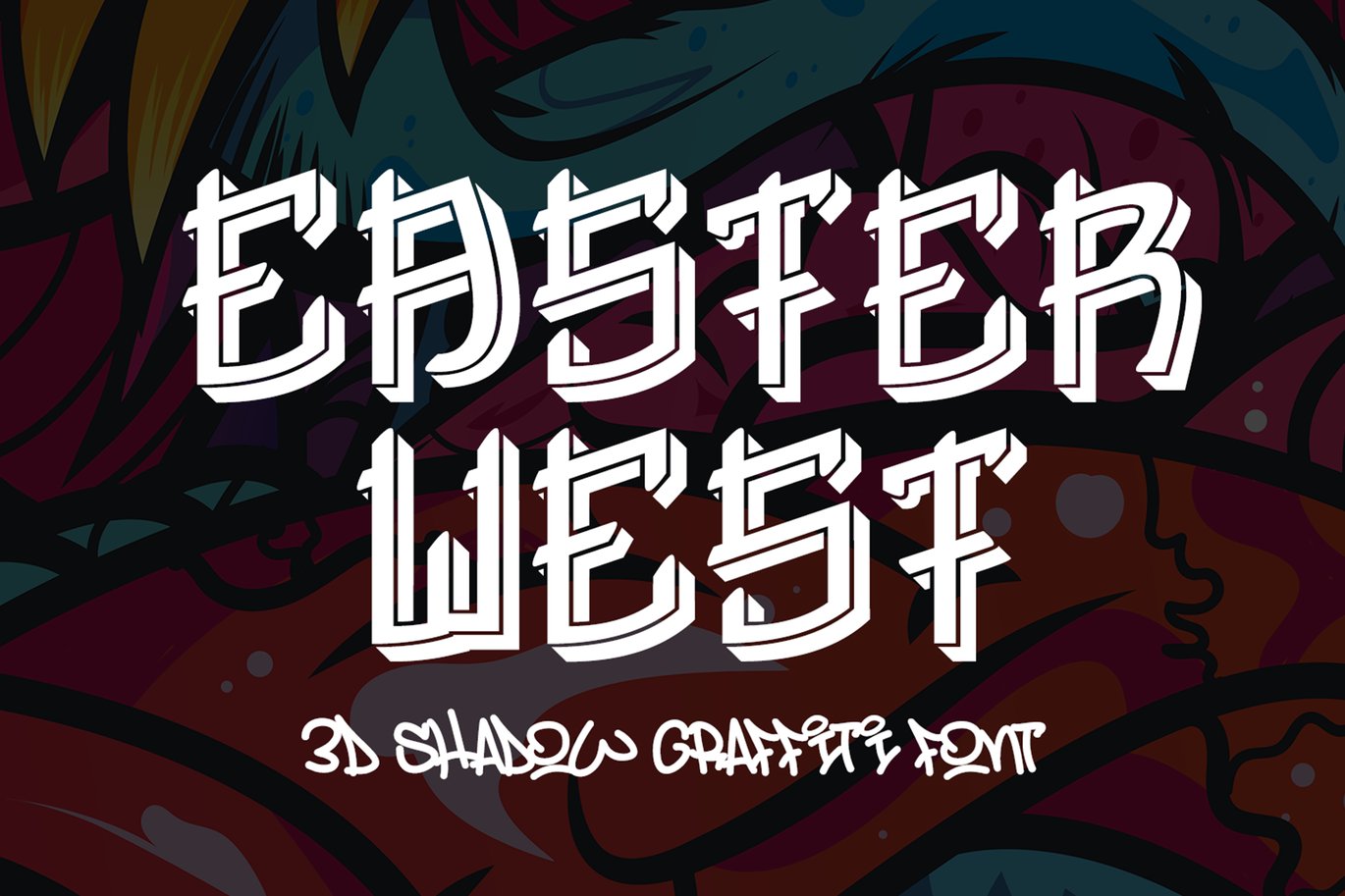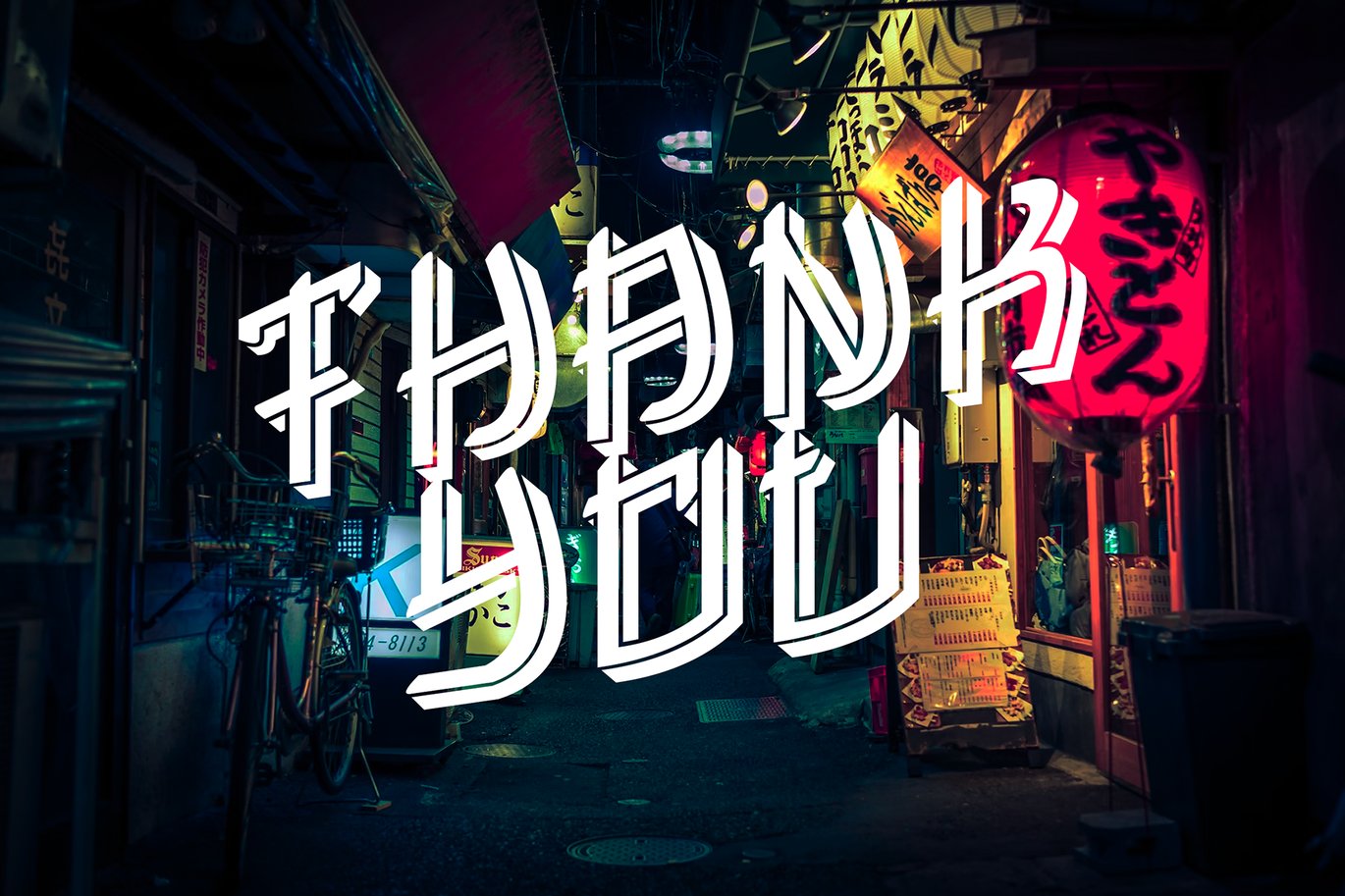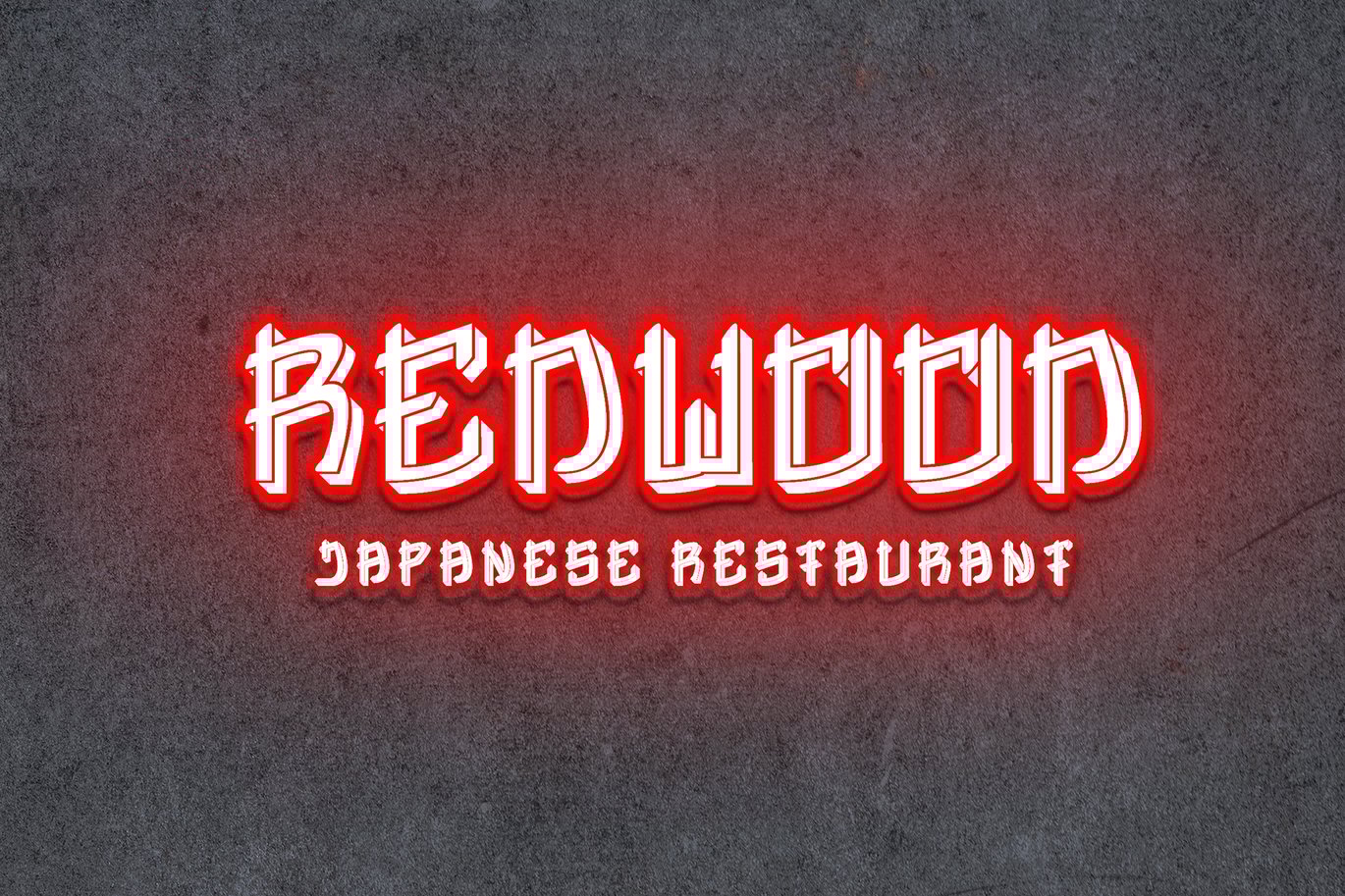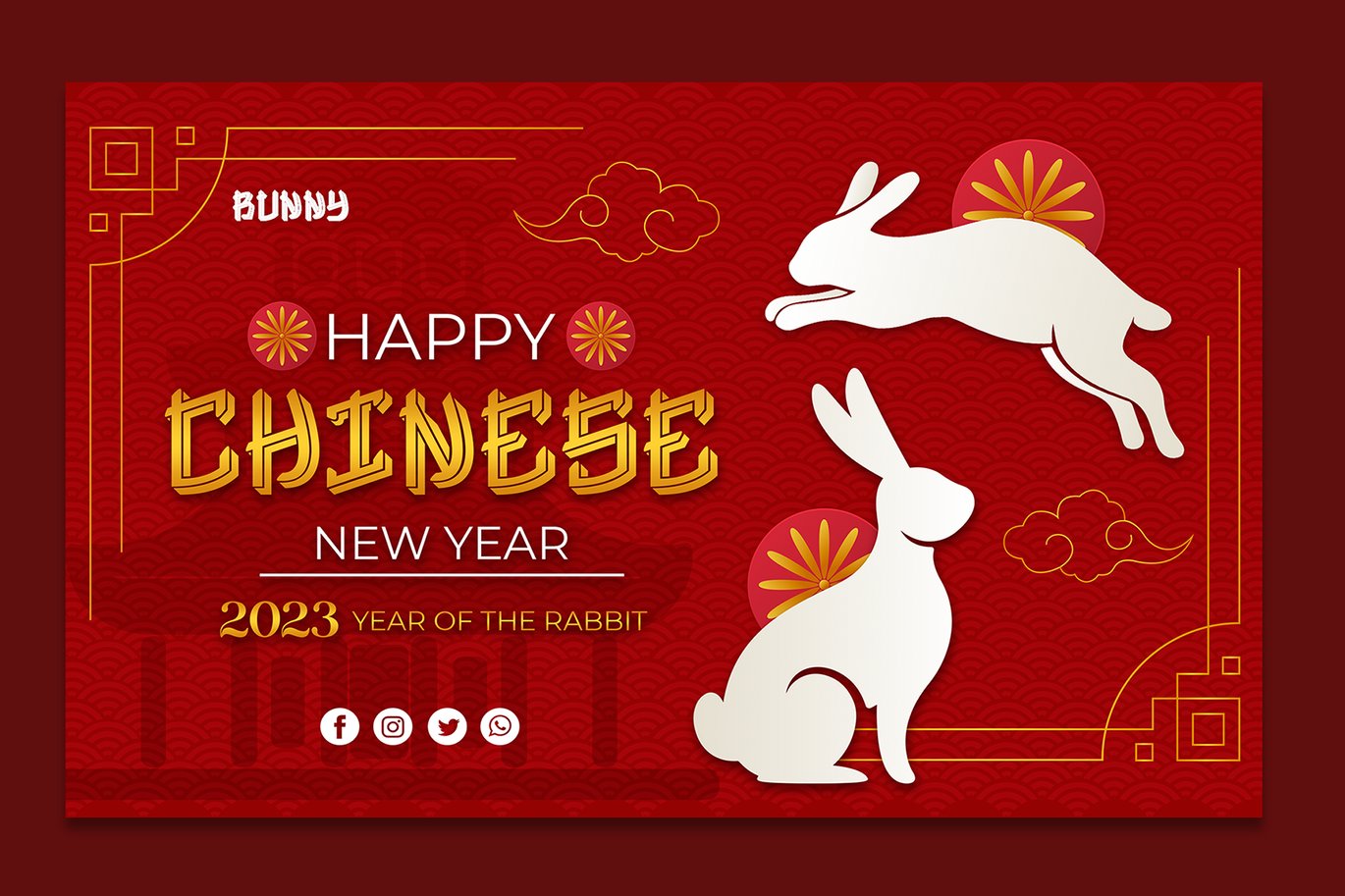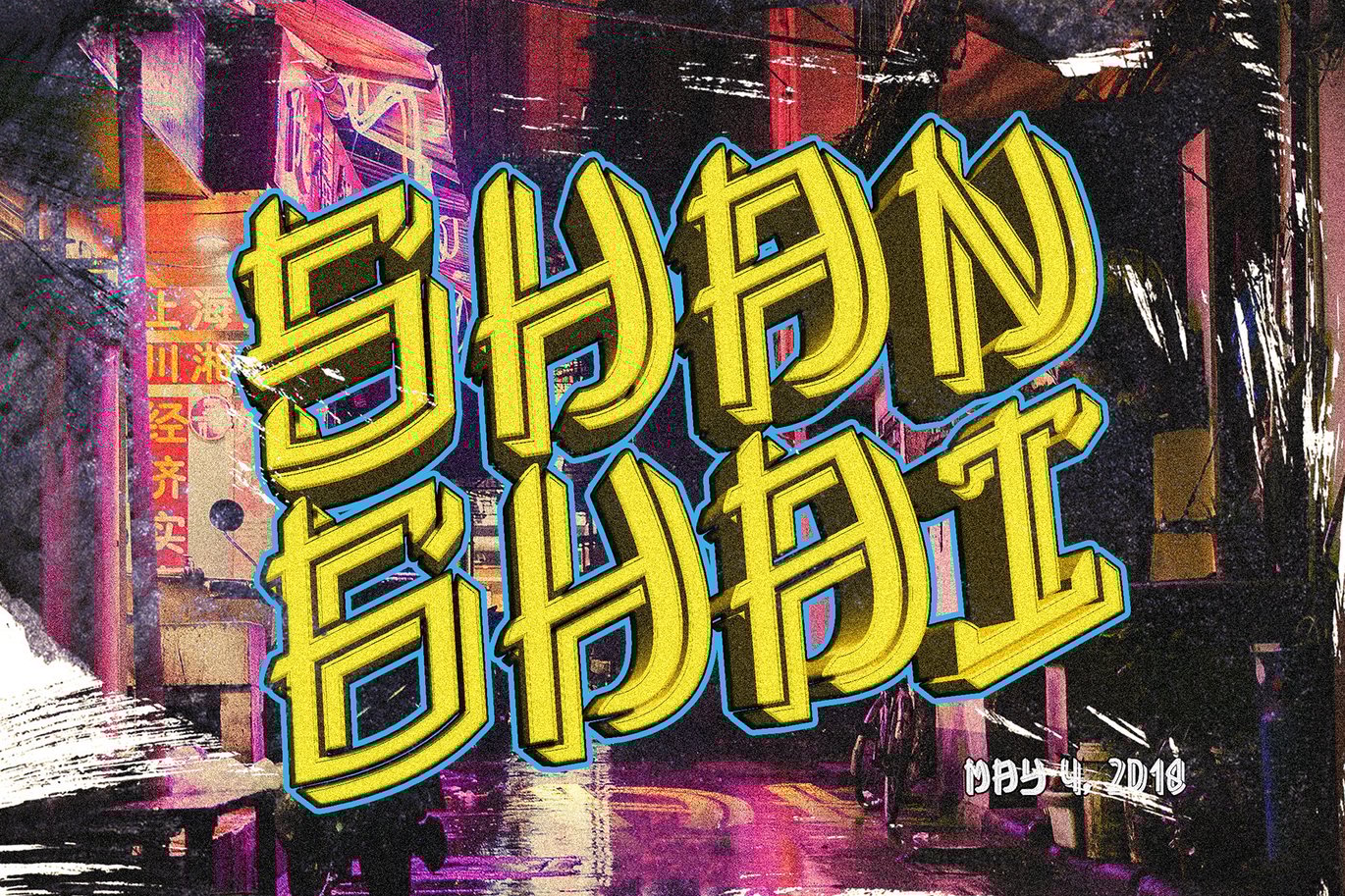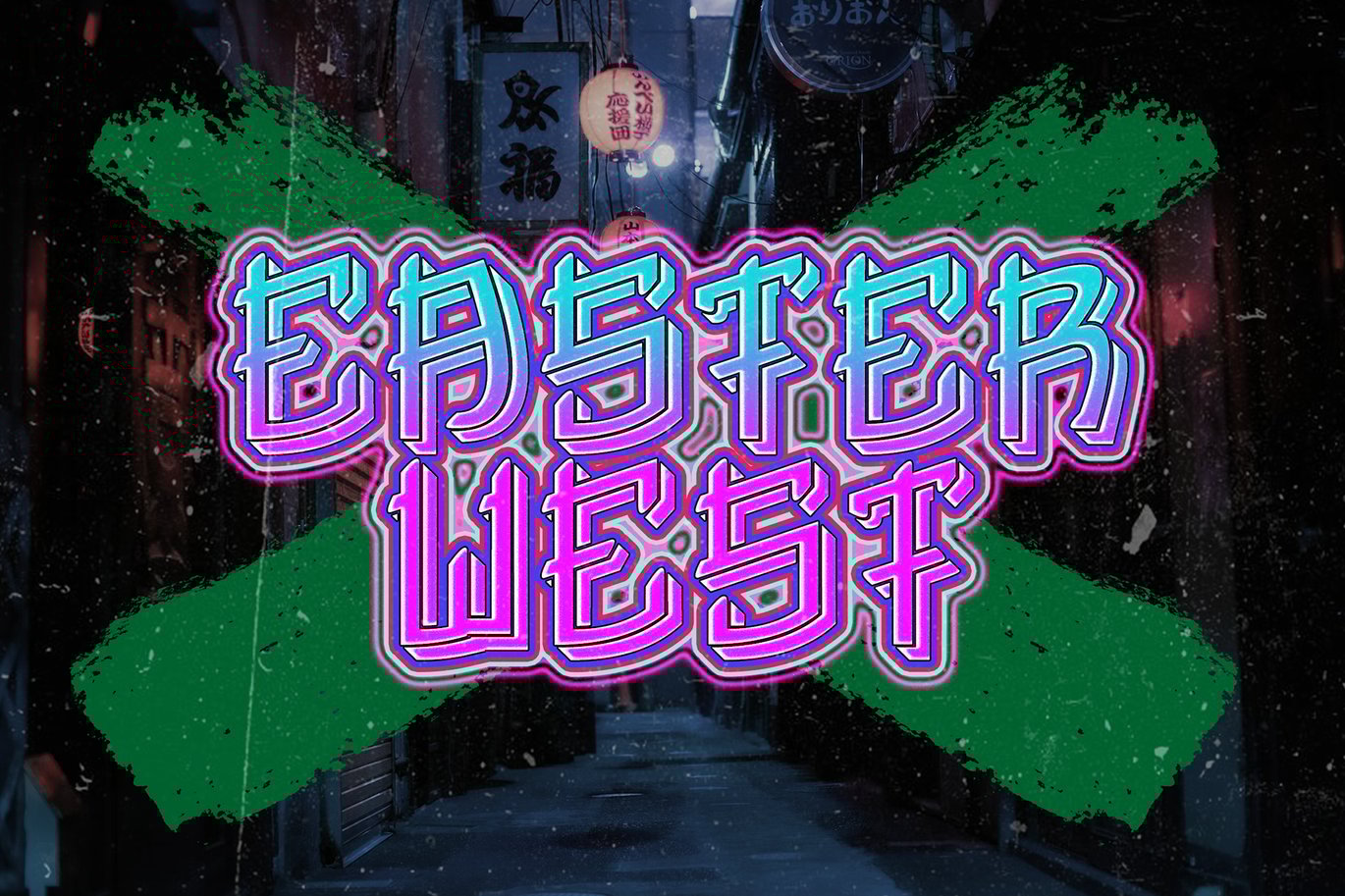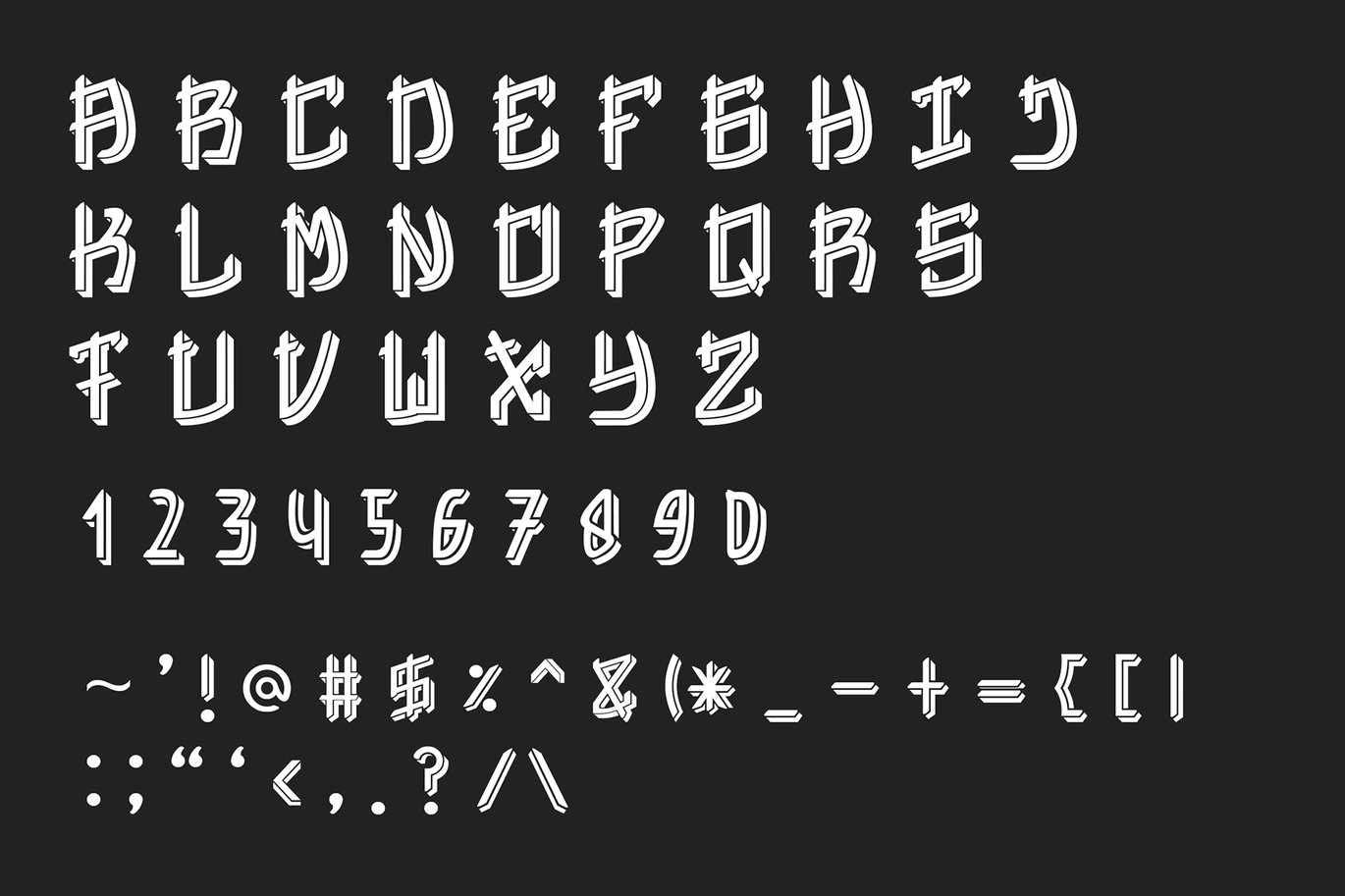
Easter West – 3d Display Font
Easter West is a display font with straight and sharp character shapes. Fonts like this are often chosen for designs that require a clean, modern, and bold appearance. This type of font can work well in a variety of design projects, including logos, headlines, posters, and other creative applications where a sharp and straightforward typography style is desired.